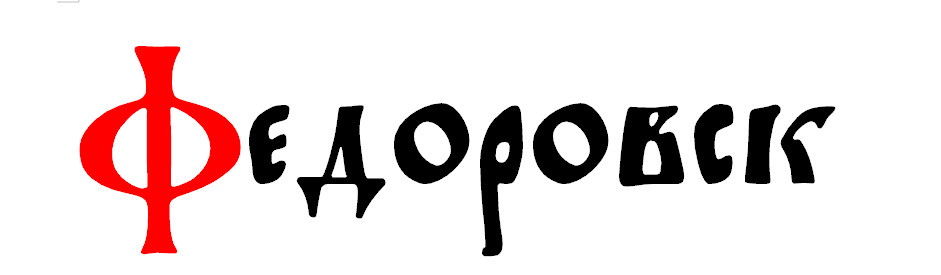
Fedorovsk Unicode Font
Fedorovsk Unicode Font is perfect for Orthodox church branding, Slavonic liturgical materials, religious manuscript reproduction, Byzantine cultural projects, ecclesiastical publishing, traditional icon workshop communications, church ceremony programs, and sacred text documentation. This reverent typeface works magnificently in both digital applications and print media where Orthodox tradition and Slavonic heritage are fundamental design requirements.
What makes Fedorovsk Unicode Font so exciting is its authentic interpretation of historical Slavonic typography through traditional letterforms that preserve the sacred calligraphic traditions of Orthodox Christianity and Byzantine manuscript culture. The font features ecclesiastical characters with liturgical proportions, traditional curves, and sacred details that evoke the spiritual devotion of ancient monastery scriptoriums and the reverent craftsmanship of Orthodox religious texts. Its holy personality and Byzantine heritage make it ideal for Orthodox institutions seeking to maintain liturgical authenticity while serving congregations who value traditional worship practices and the preservation of Slavonic religious culture.
The Fedorovsk Unicode Font family includes comprehensive Unicode support for Slavonic scripts with different traditional intensities, along with liturgical alternates and Orthodox ornamental elements. Each style maintains the typeface's sacred character while offering extensive character sets including Church Slavonic letters, traditional numerals, ecclesiastical punctuation marks, and special symbols designed to enhance Orthodox communications and religious branding efforts across various liturgical contexts.
This extraordinary typeface represents the perfect preservation of Byzantine tradition and contemporary digital functionality for Orthodox religious and cultural institutions. Whether you're developing Orthodox church identities, creating liturgical service materials, or designing Slavonic cultural publications, Fedorovsk Unicode Font Free Download provides the sacred authenticity and versatility needed to serve Orthodox communities worldwide. The font's Byzantine heritage makes it particularly effective for Orthodox churches, religious publishers, Slavonic cultural centers, and institutions preserving the rich traditions of Eastern Christian worship and Slavonic manuscript culture.
The meticulously preserved traditional construction and optimized liturgical performance in Fedorovsk Unicode Font ensure both sacred authenticity and clear communication across all Orthodox applications. Its reverent presence makes it perfect for ecclesiastical branding, religious educational materials, and liturgical communications where its full Slavonic character can create meaningful spiritual connections with Orthodox faithful seeking authentic worship experiences and the preservation of their sacred religious heritage.